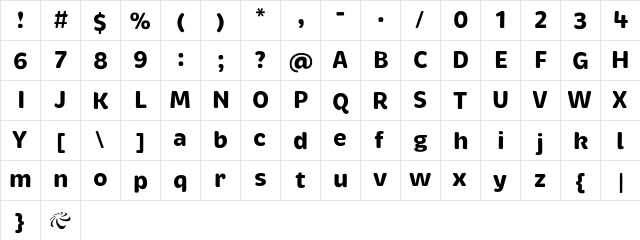
Brevia Bold Bold
| Foundry | Hannes von Dn |
| Designer | Hannes von Dn |
Design Context for Brevia Bold Typeface
Brevia Bold takes a measured approach to typography — its balanced proportions and neutral character make it a reliable workhorse for both digital and print work. Its bold stroke weight gives it real presence on the page.